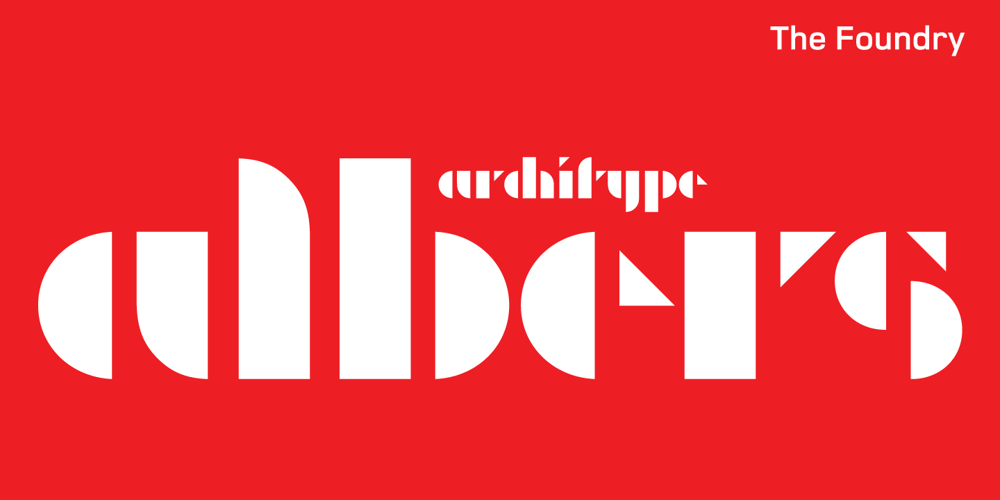
Architype Albers
Architype Albers font
Architype Albers Font Family was designed by Freda Sack, David Quay, Josef Albers and published by The Foundry. Architype Albers contains 1 styles and family package options. Architype Konstrukt is a collection of avant-garde typefaces deriving mainly from the work of artists/designers of the inter-war years, whose ideals have helped to shape the design philosophies of the modernist movement in Europe. Due to their experimental nature character sets may be limited. Architype Albers draws on early grid-based attempts by Josef Albers, in 1926, to design an alphabet by reducing the forms to purely geometric elements – the square, triangle and parts of a circle – and in the process creating an unusual stencil effect typeface.